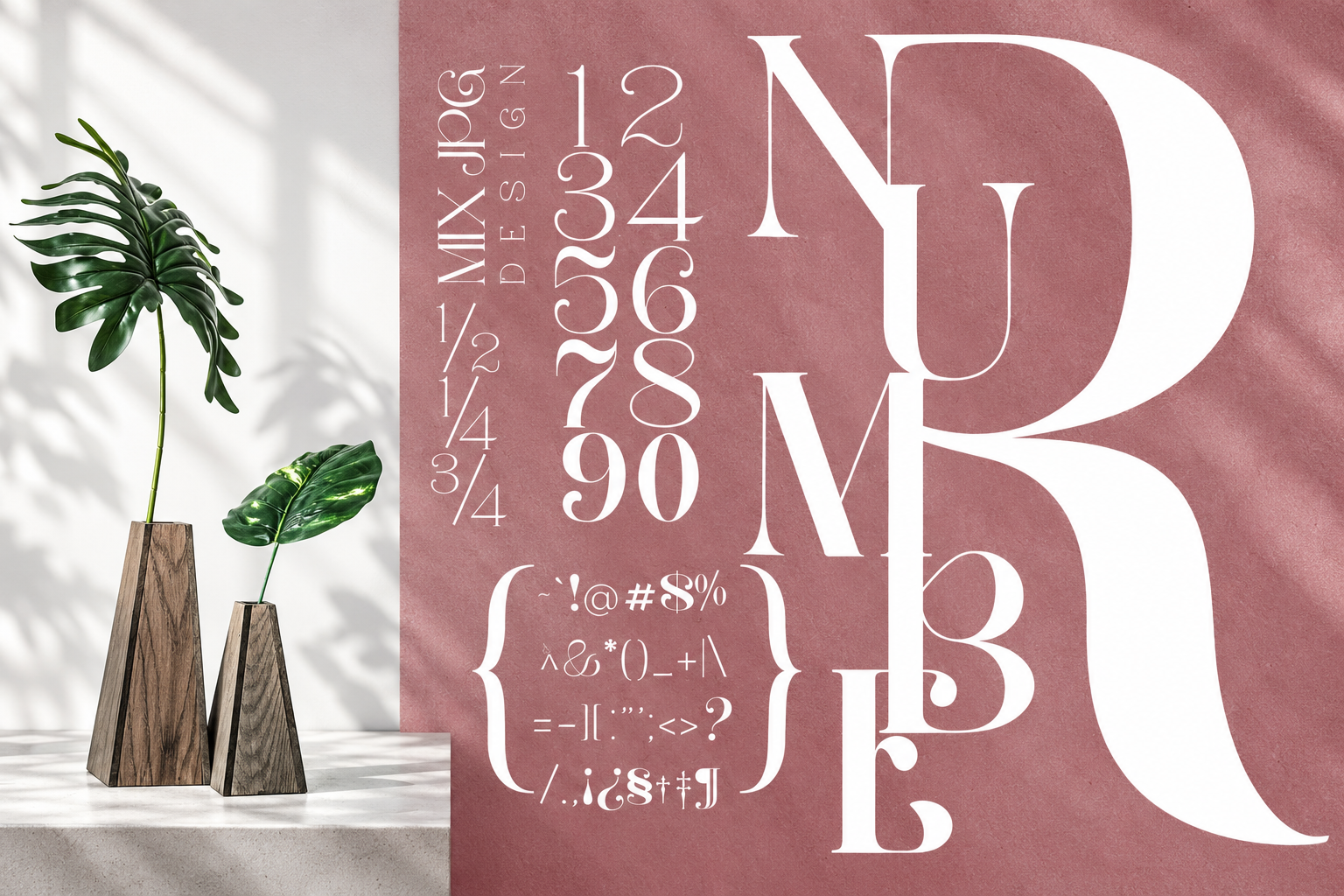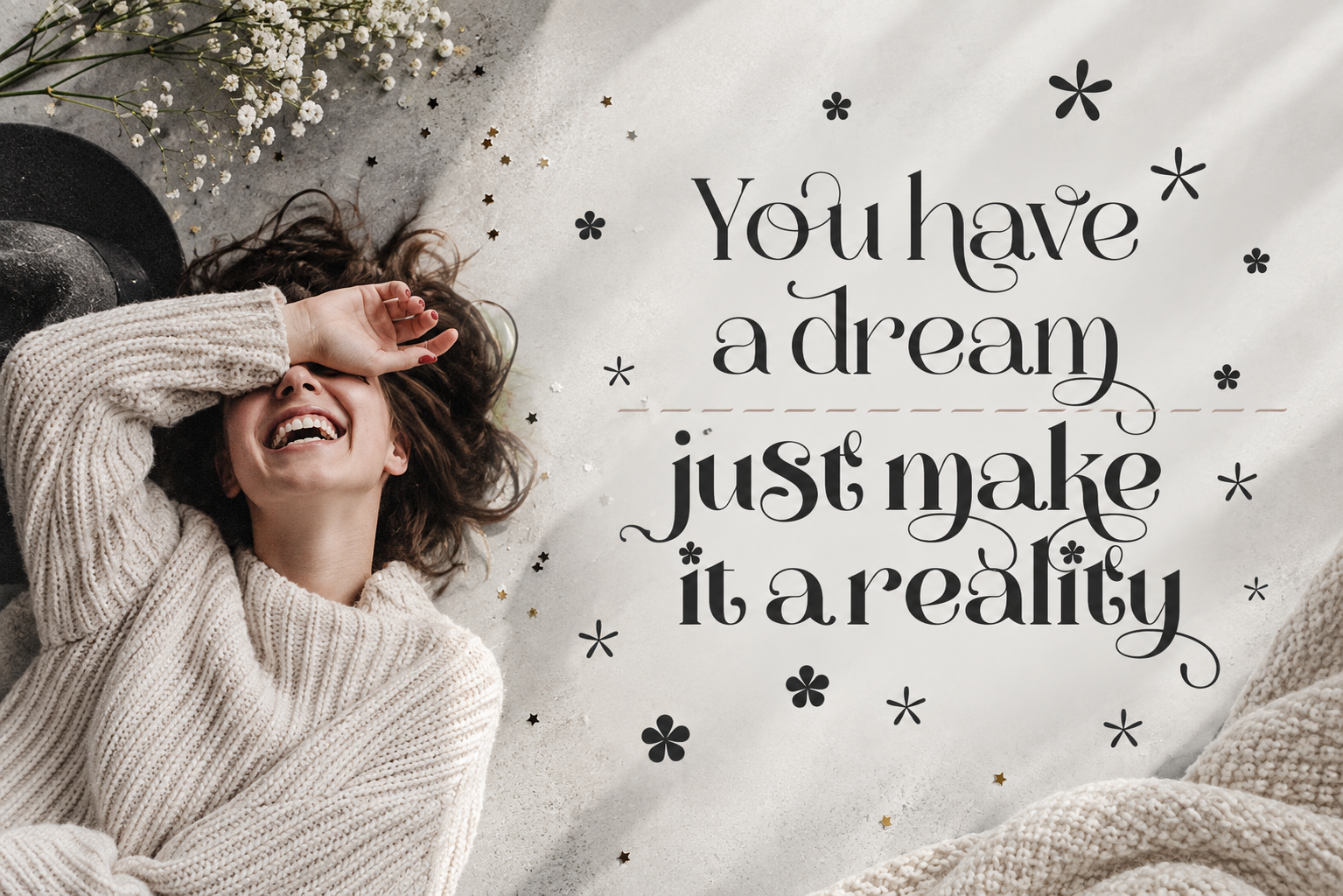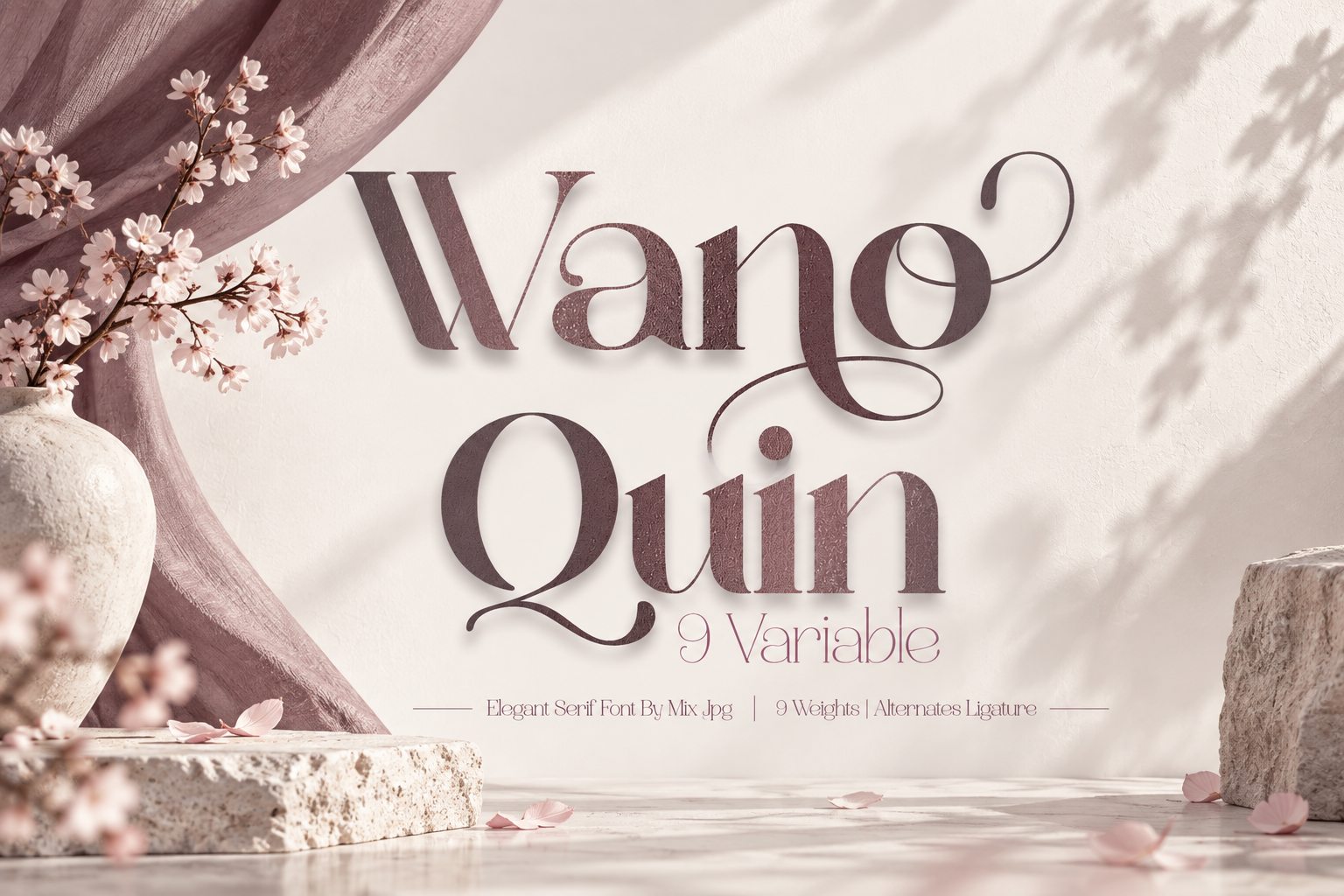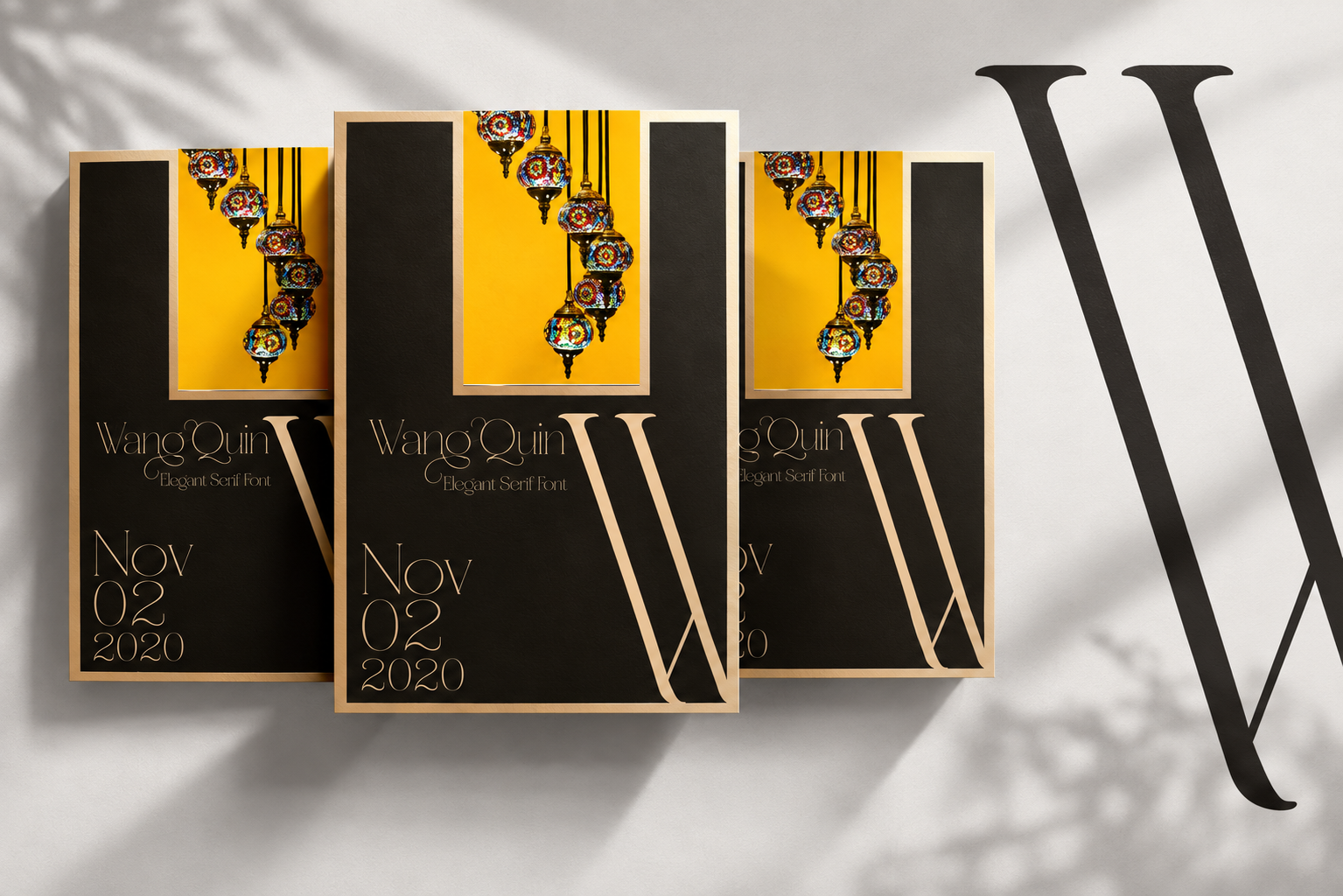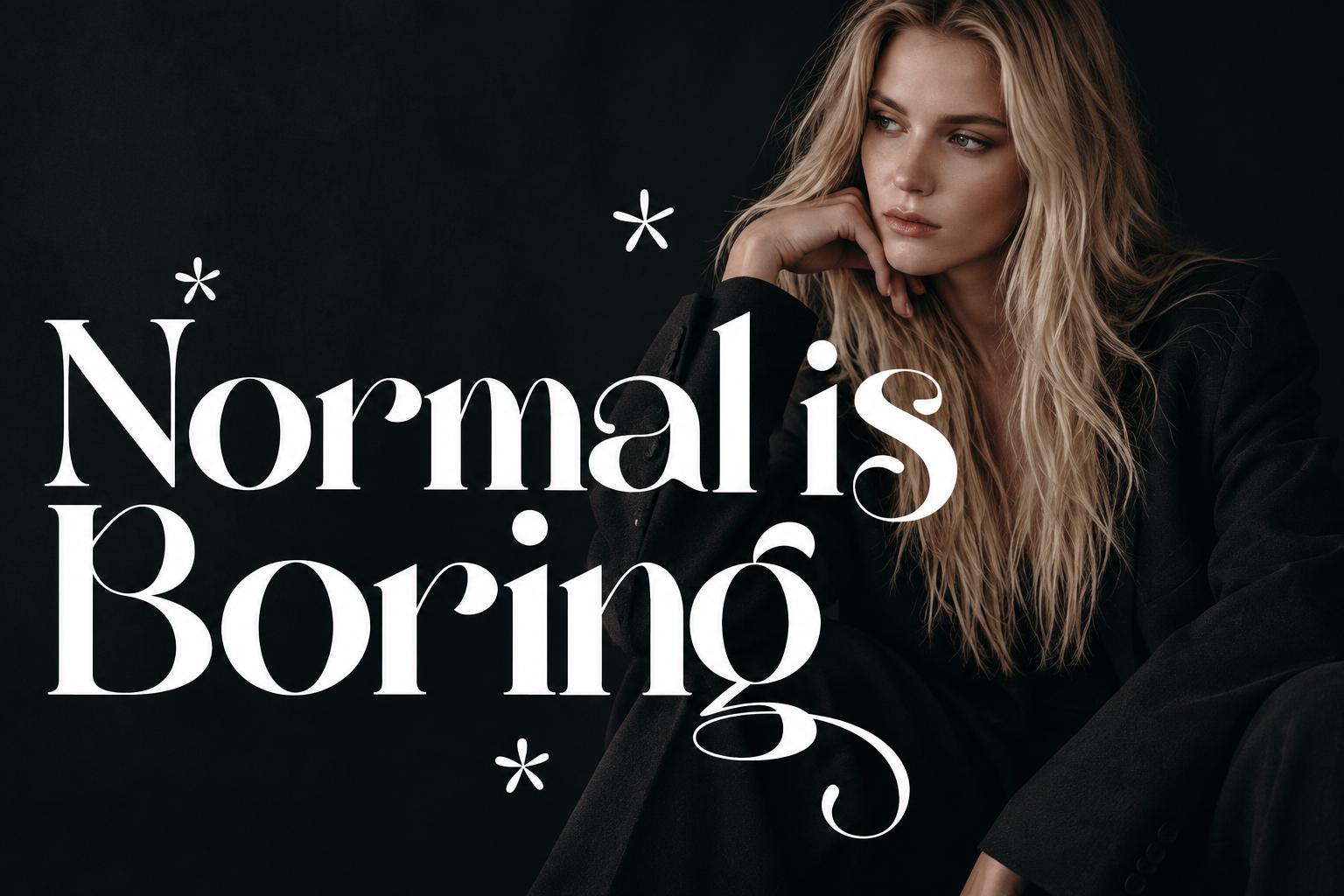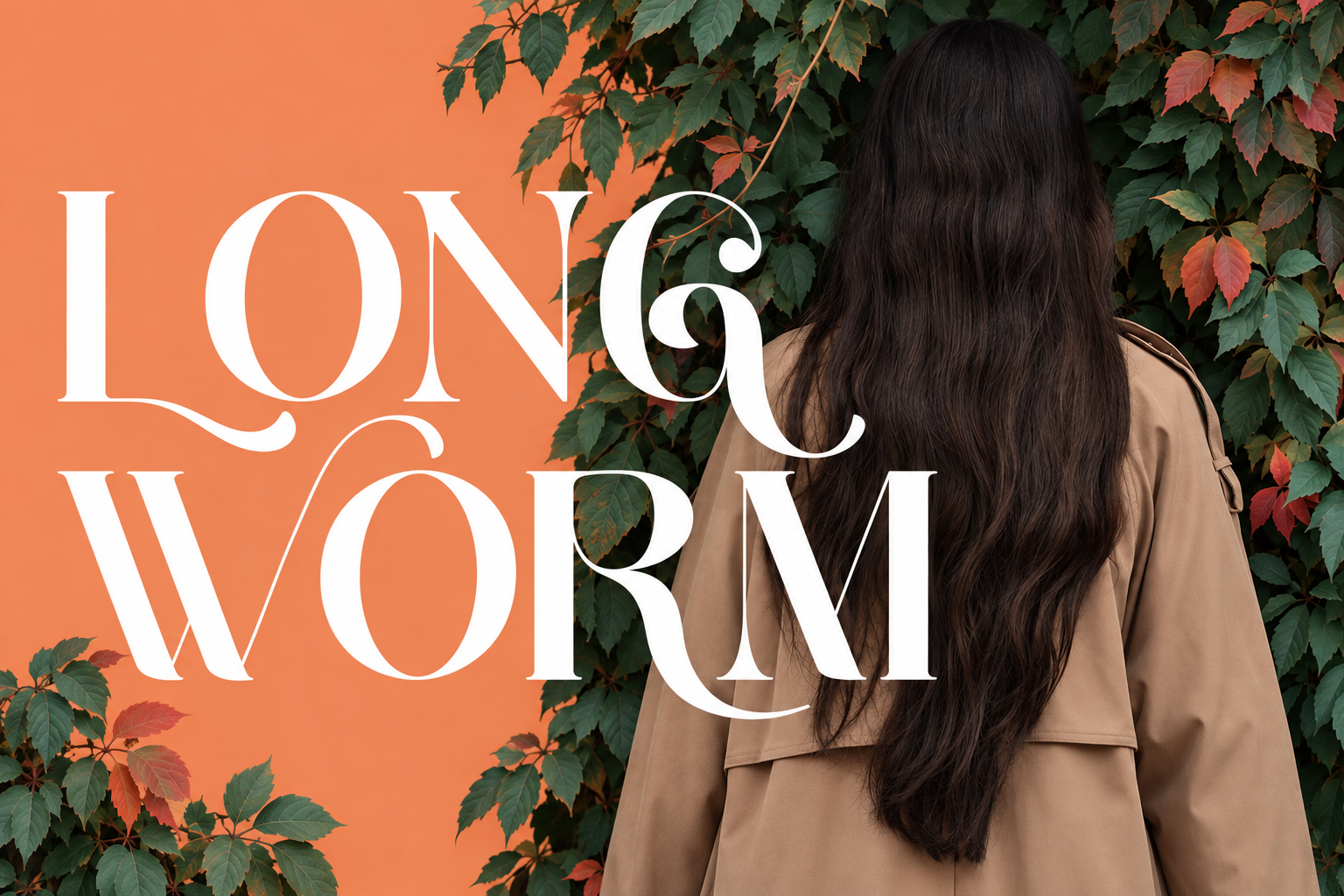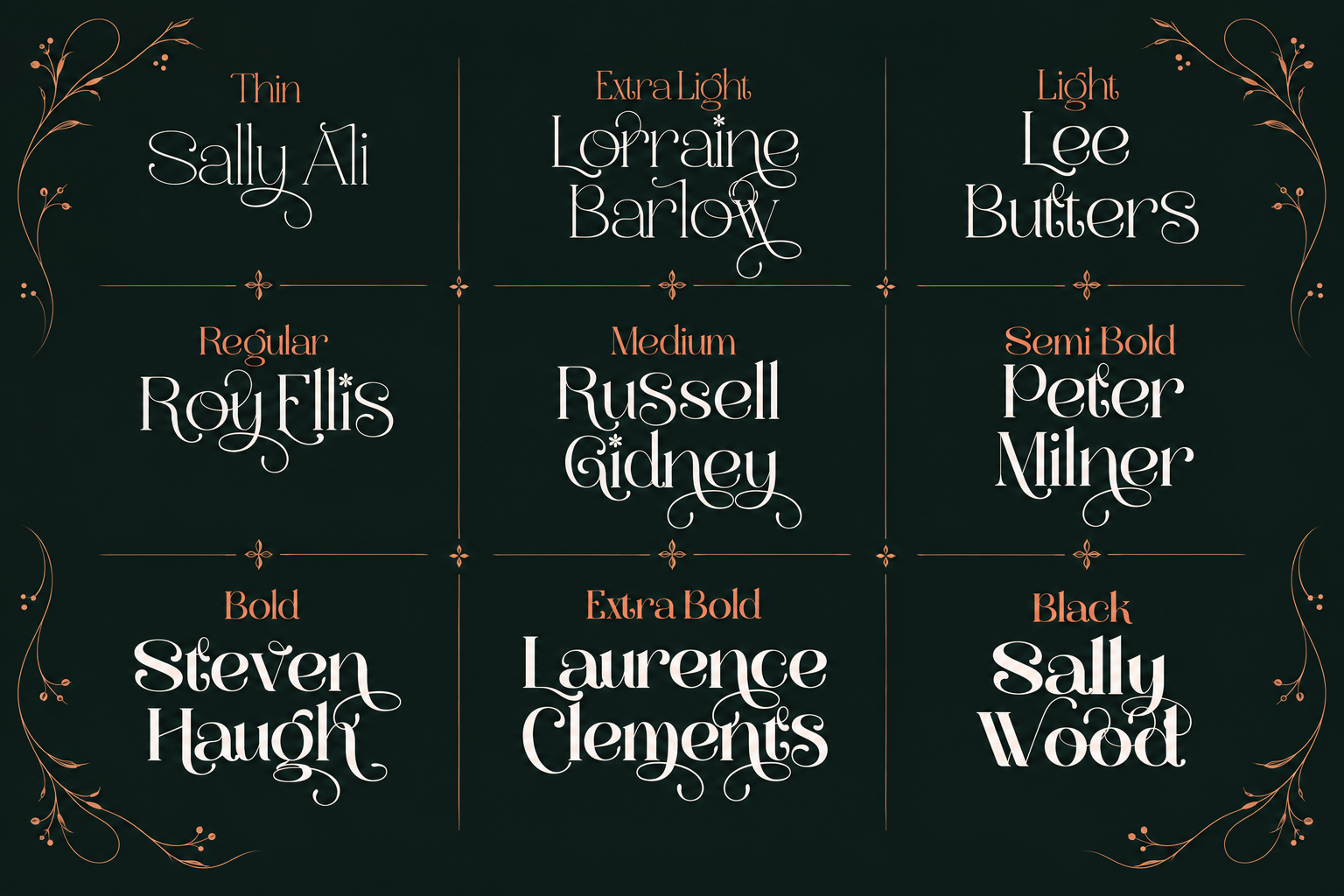
Wano Quin – Beautiful and Elegant Serif Font
Wano Quin font is a beautiful and stylish font family that offers many elegant serif, classic and elegant style for poster design, magazines, beauty branding with a flower-shaped asterisk glyph suitable for your beautiful and elegant design concept
Wano Quin | Beautiful and Elegant Serif Font family with alternates that you can combine to get curves and beautiful shapes just in seconds. Play with the ornaments to create a more stunning display.
Features Uppercase & Lowercase, Number & Symbol, Multi language, Ligatures, Alternates for each characters.